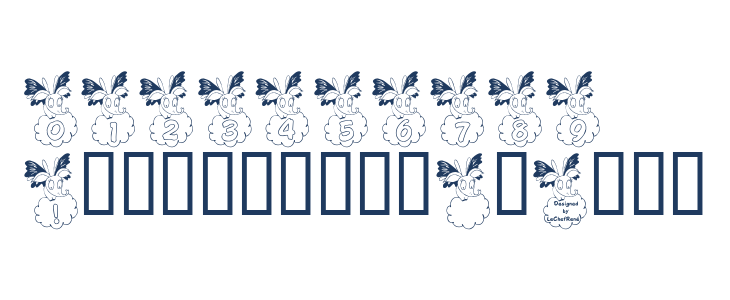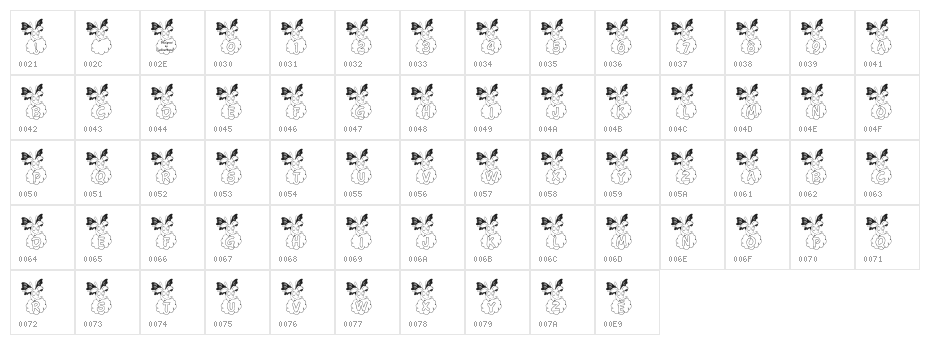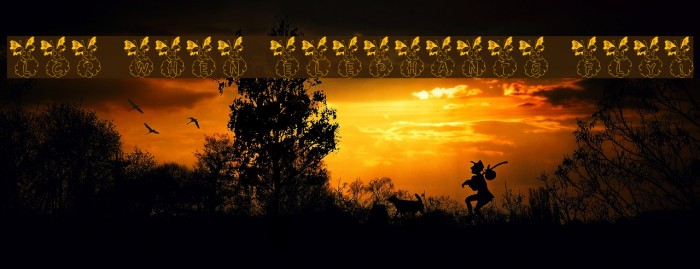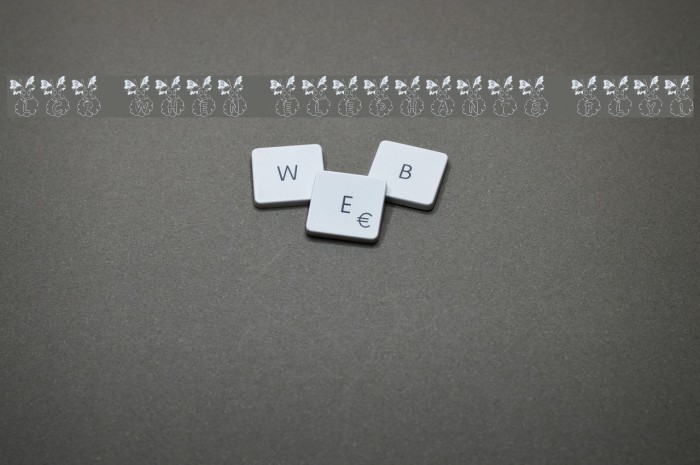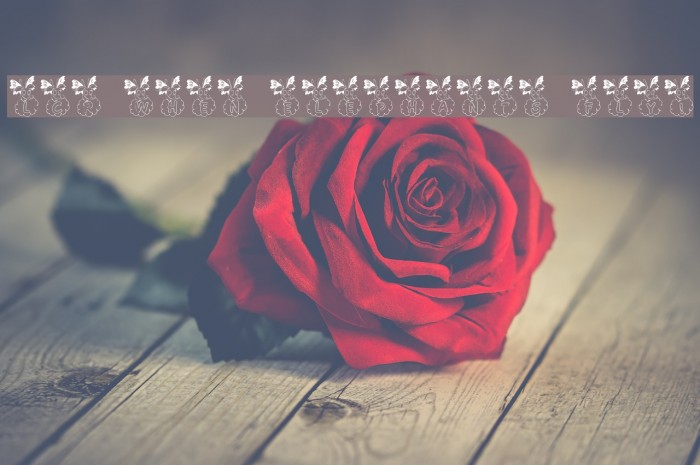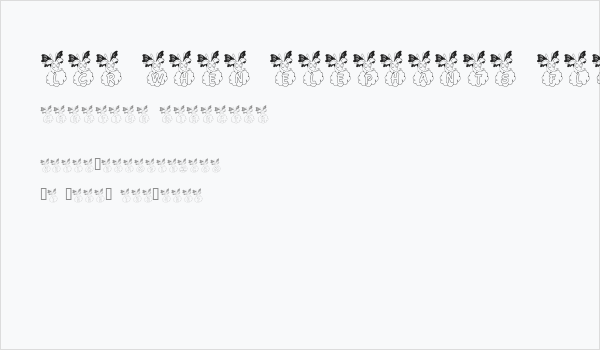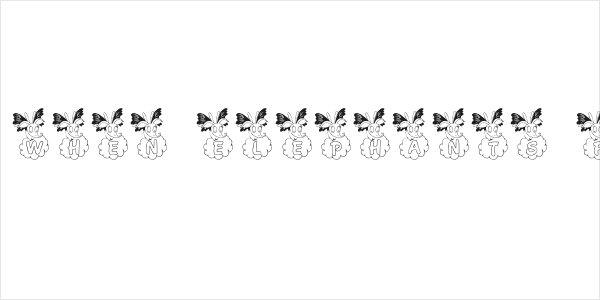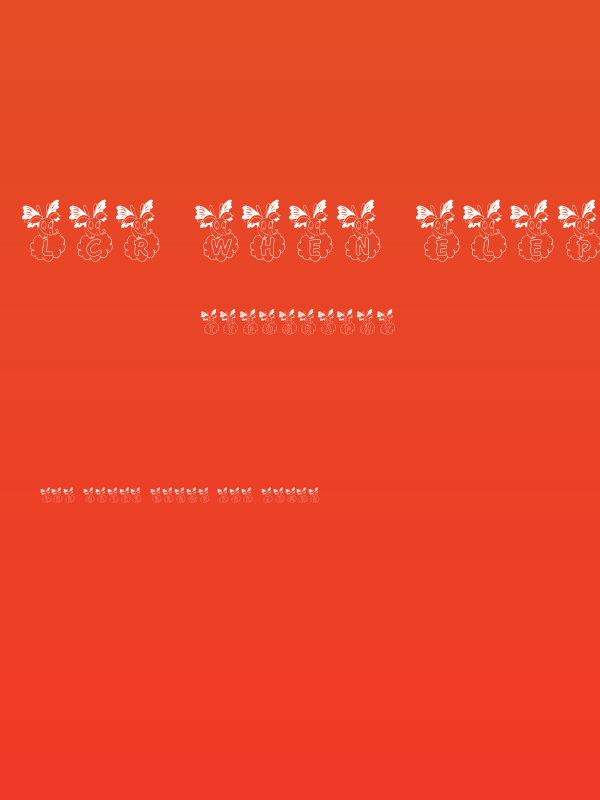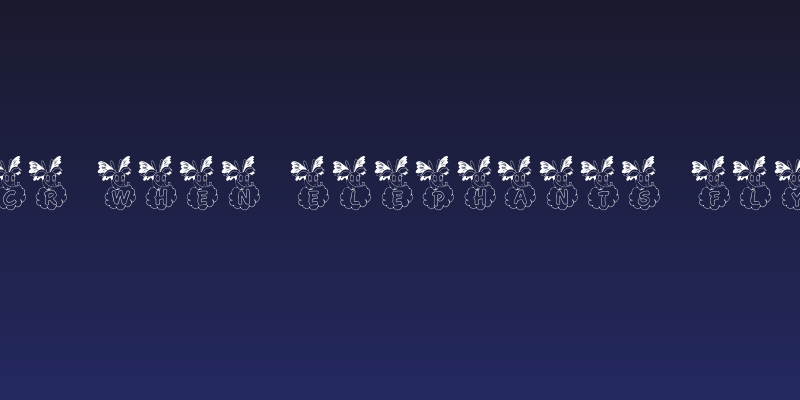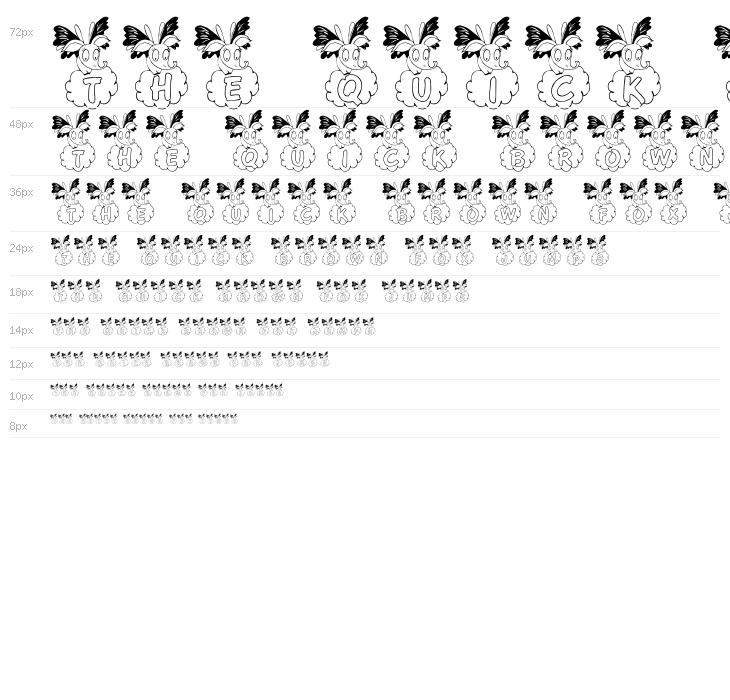
LCR When Elephants Fly! Font
LCR When Elephants Fly! Description
This whimsical font features characters enclosed within fluffy cloud-like shapes, each topped with a pair of detailed, cartoonish wings. The playful design is consistent across uppercase and lowercase letters, as well as numbers, creating a cohesive and imaginative style. The font's unique appearance makes it ideal for projects that require a touch of fantasy or childlike wonder. The characters are bold and easily readable, despite their decorative elements, making them suitable for a variety of creative applications.
Overall StyleWhimsical, Playful
Proposed ProjectsIdeal for children's books, fantasy-themed posters, playful branding, and whimsical invitations.